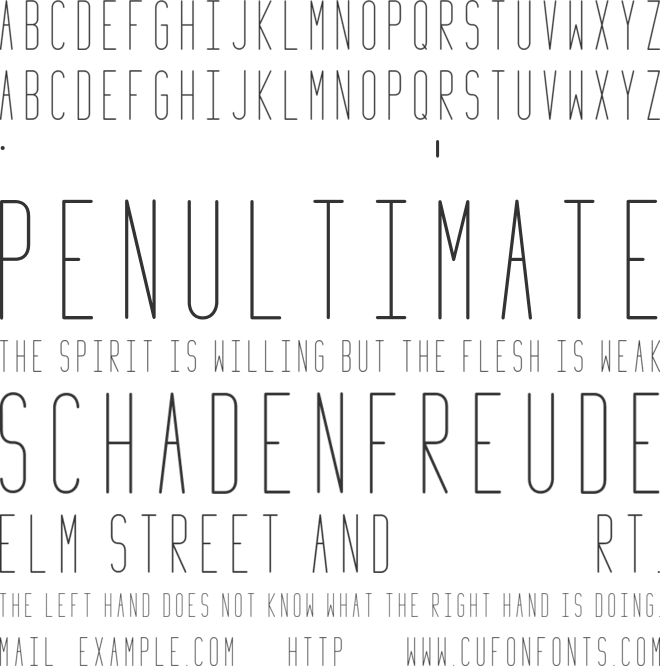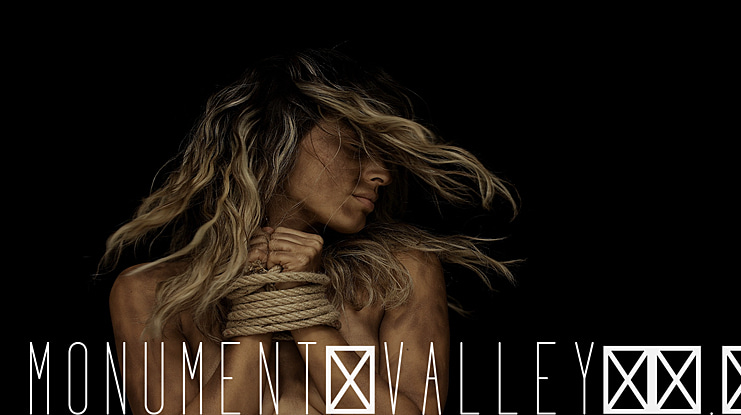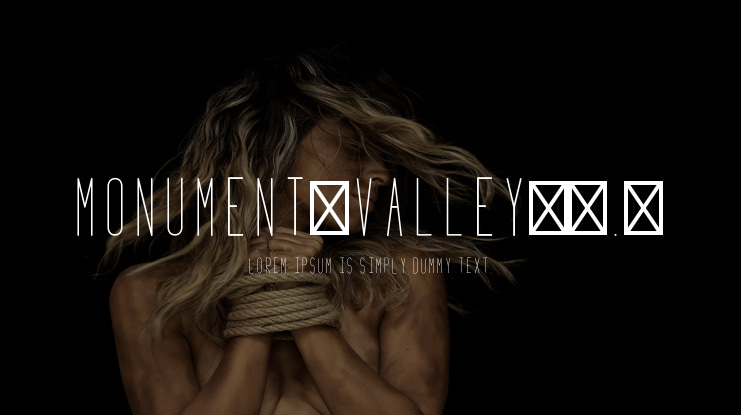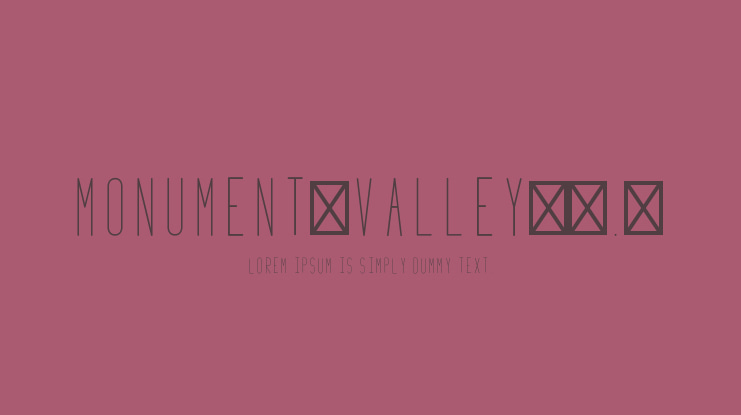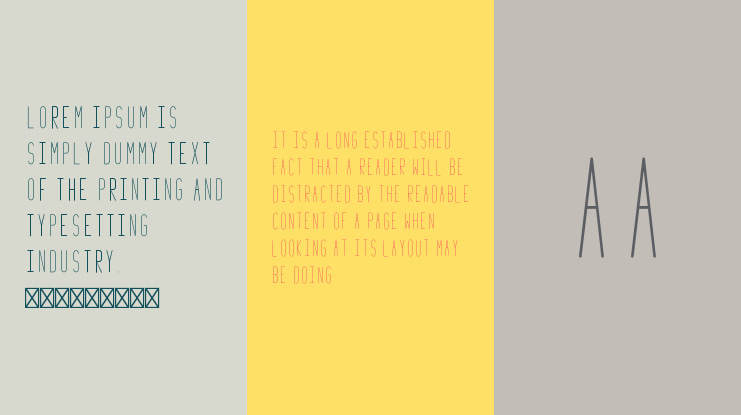
Monument_Valley_1.2 Font
Taylor Spaulding
Monument Valley: Thin, tall, and modern. Ideal for titles; lacking numbers and punctuation, except comma, period, and apostrophe. Future updates to come.